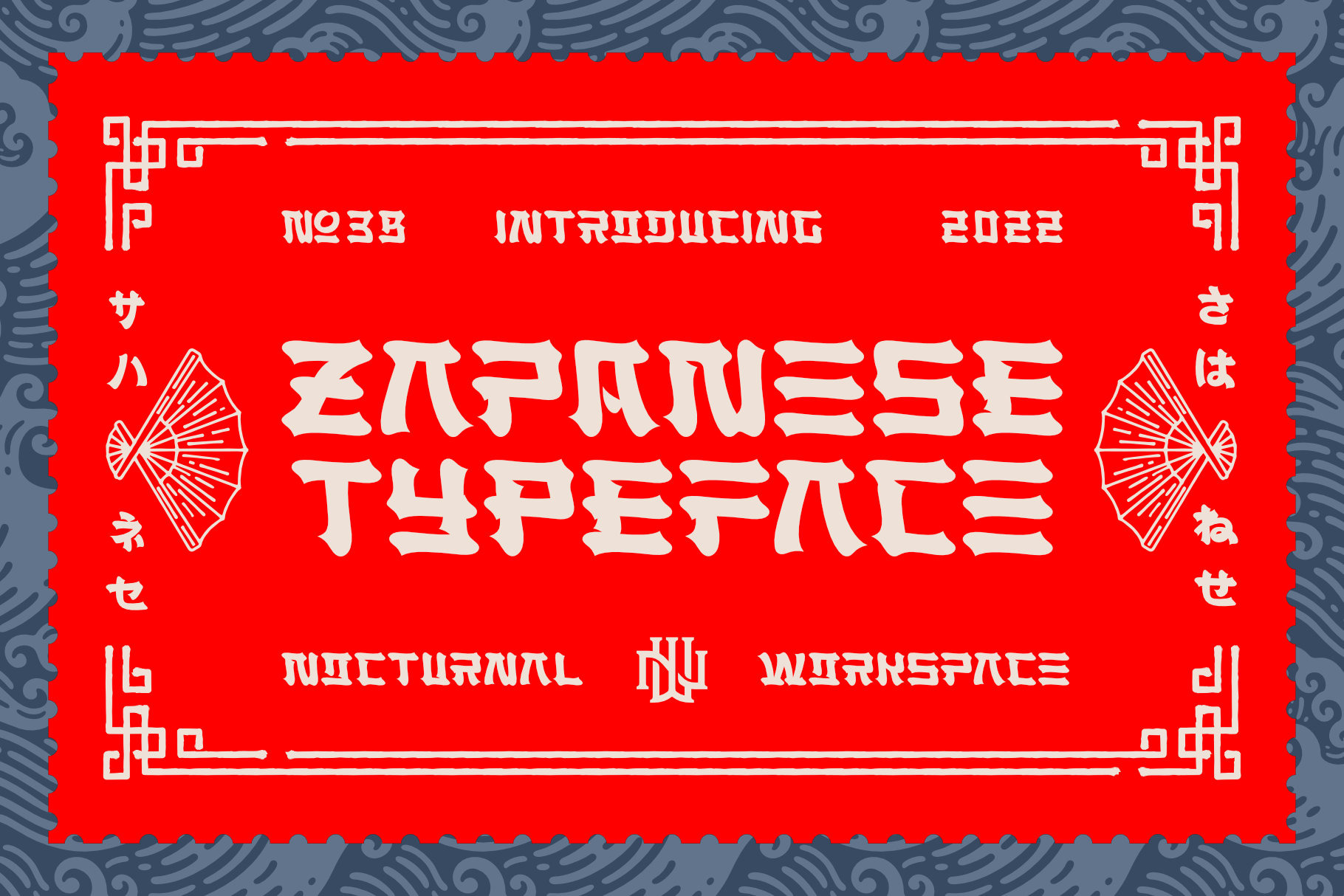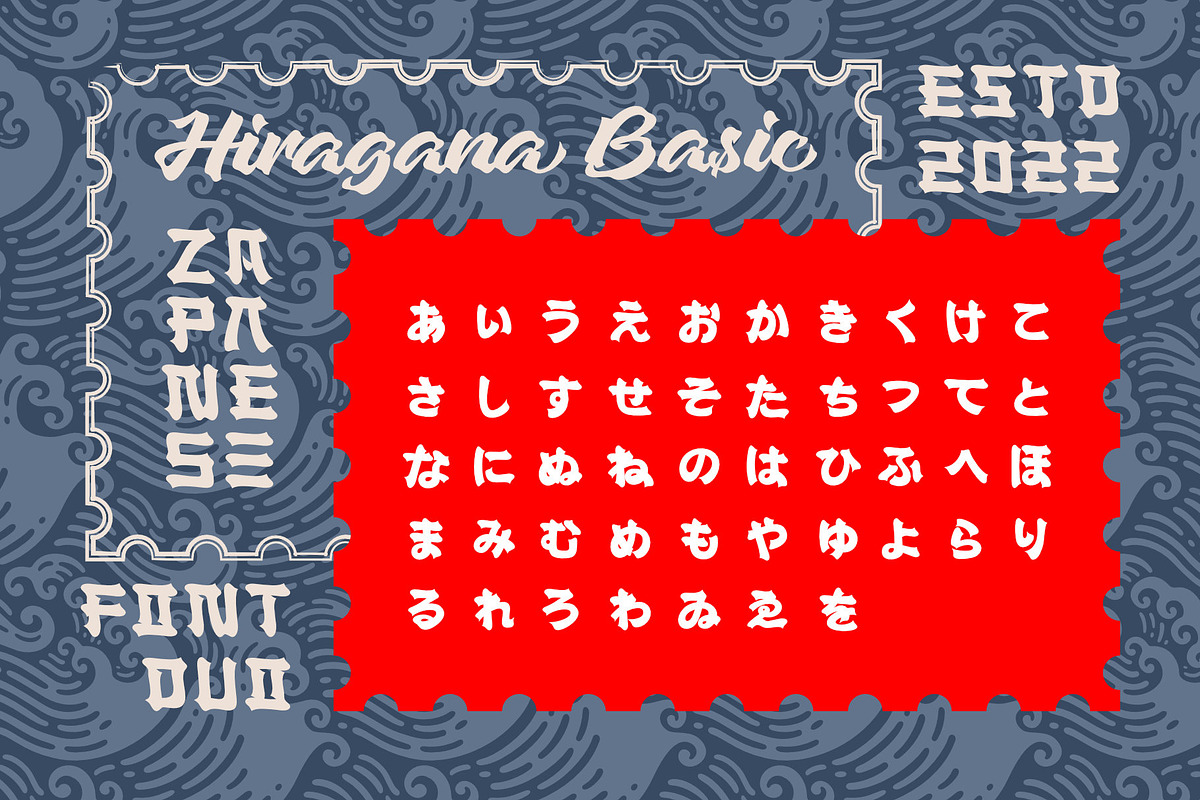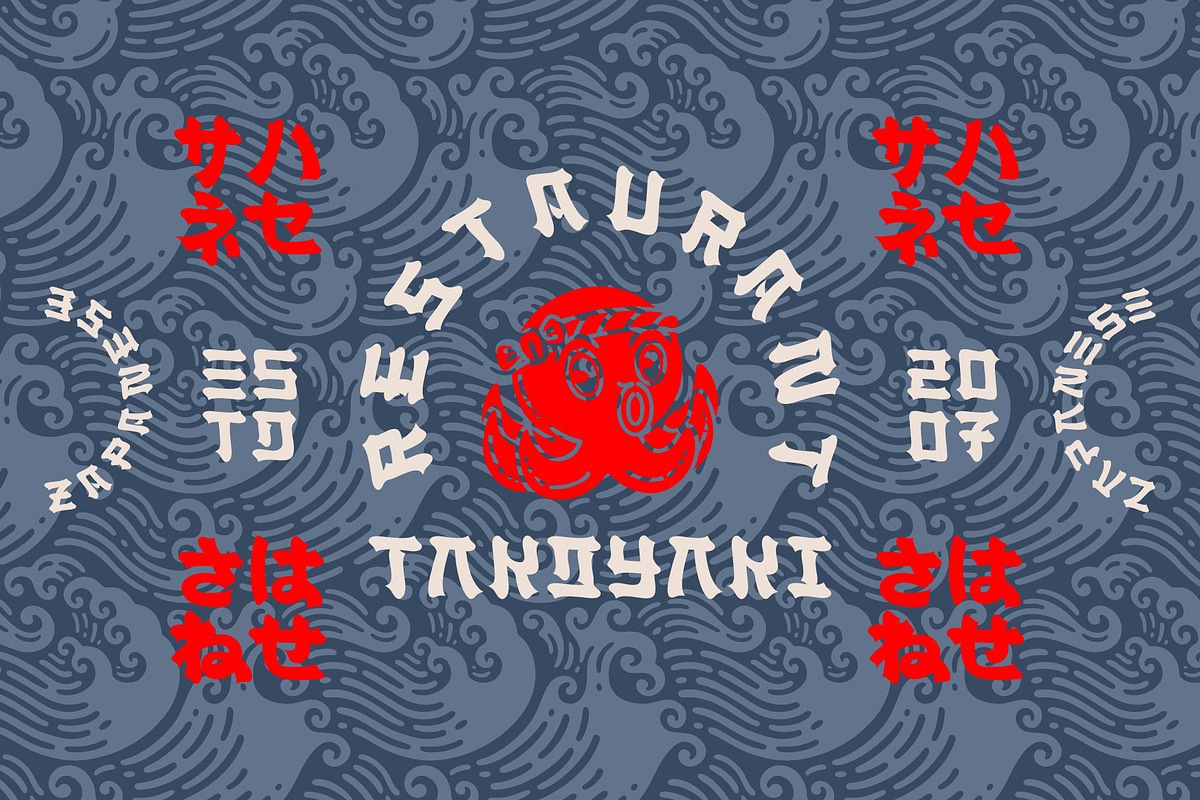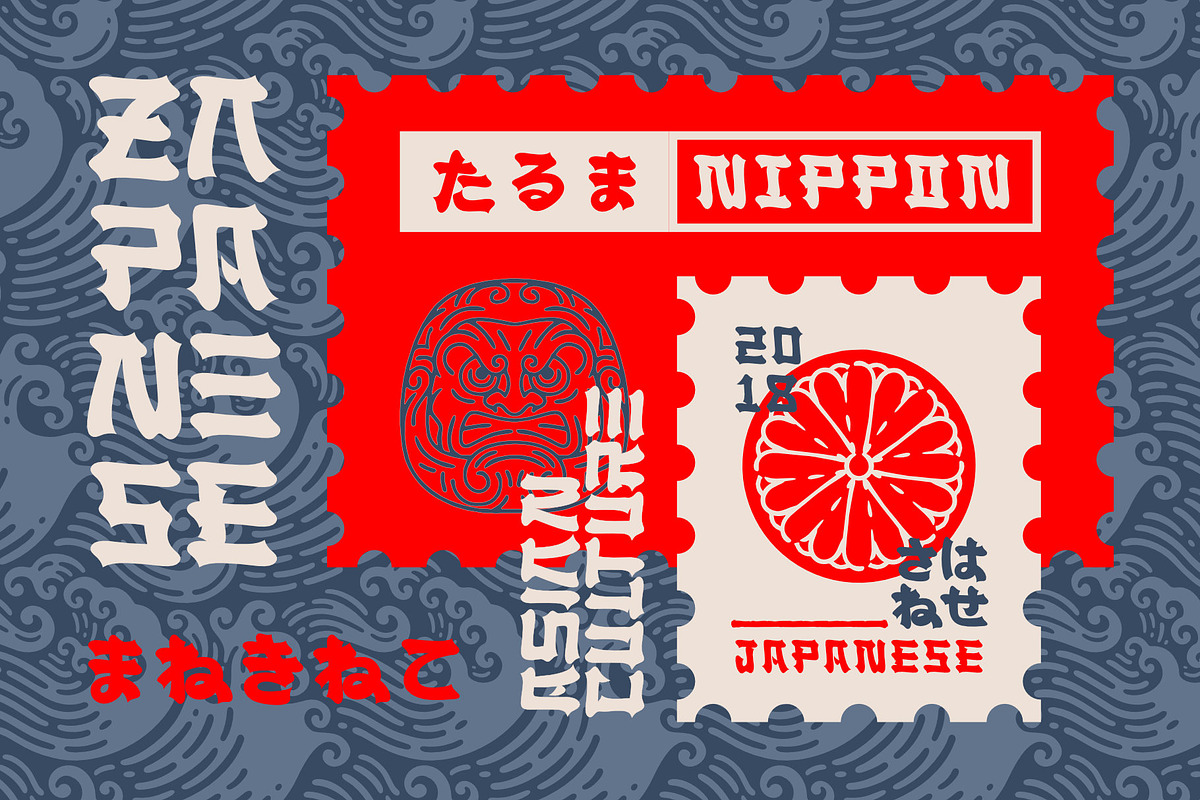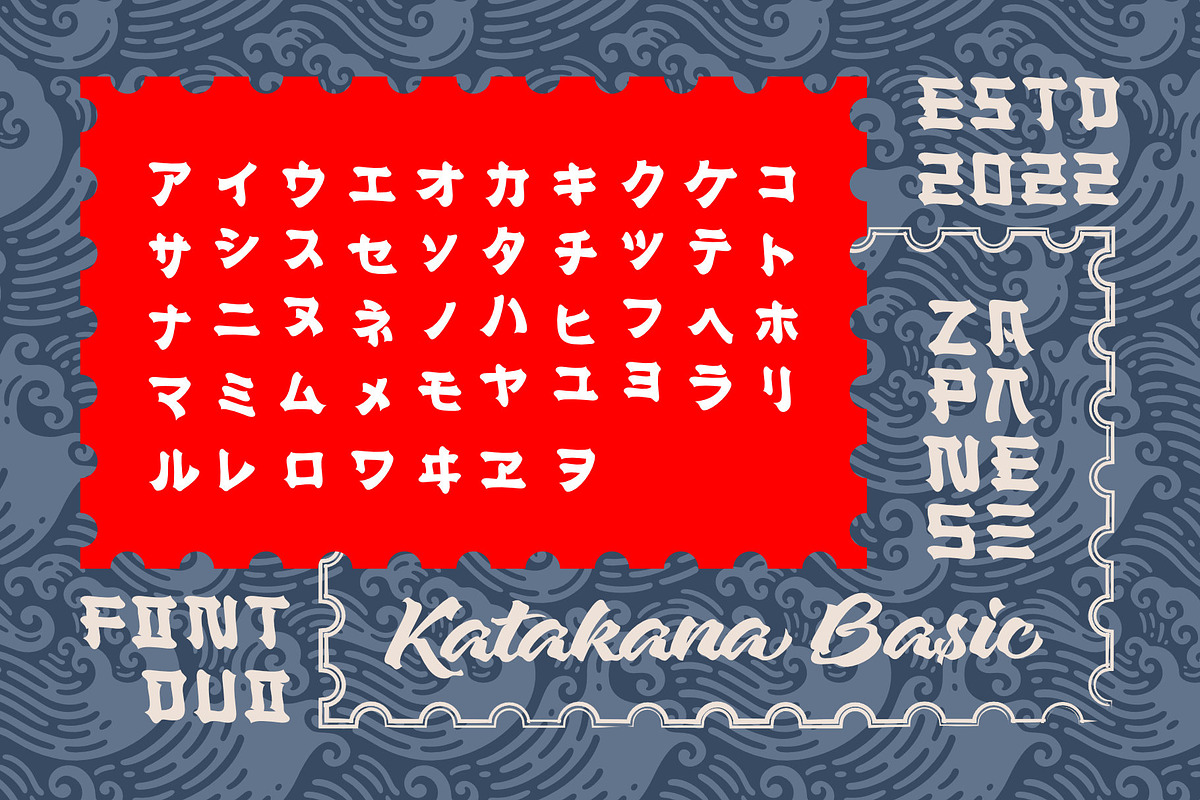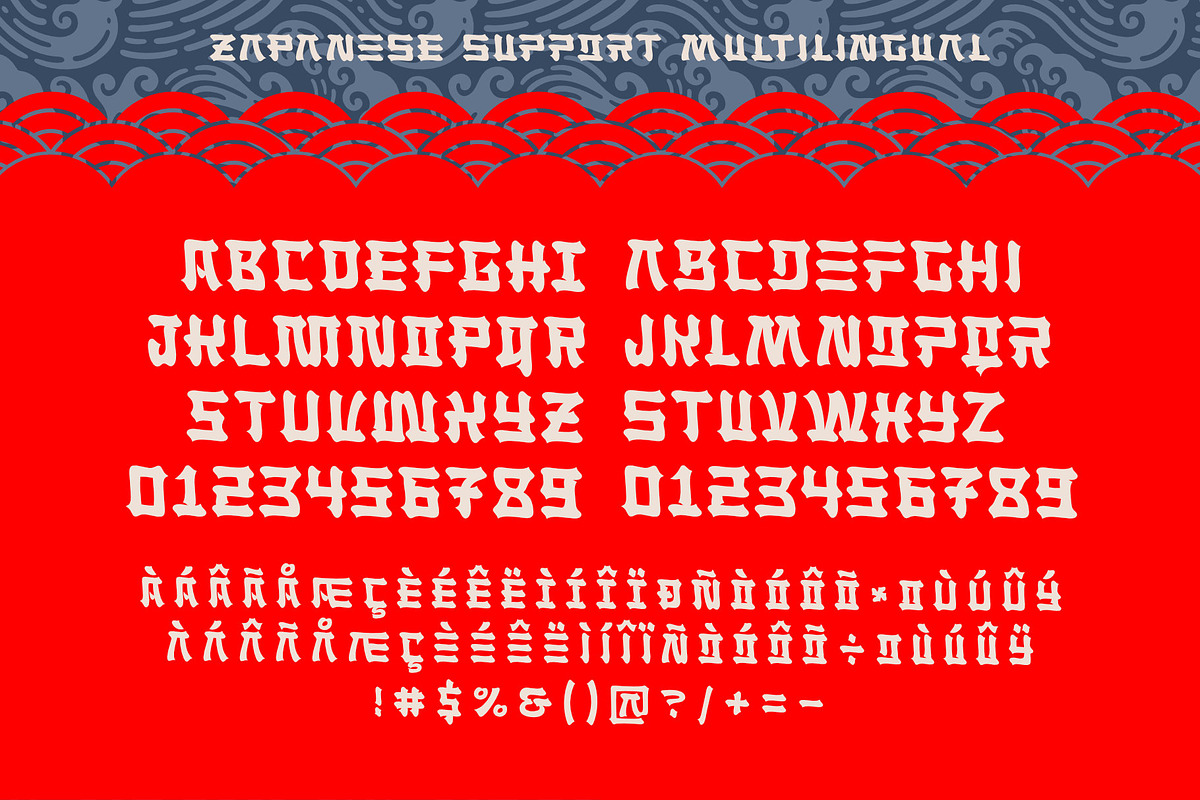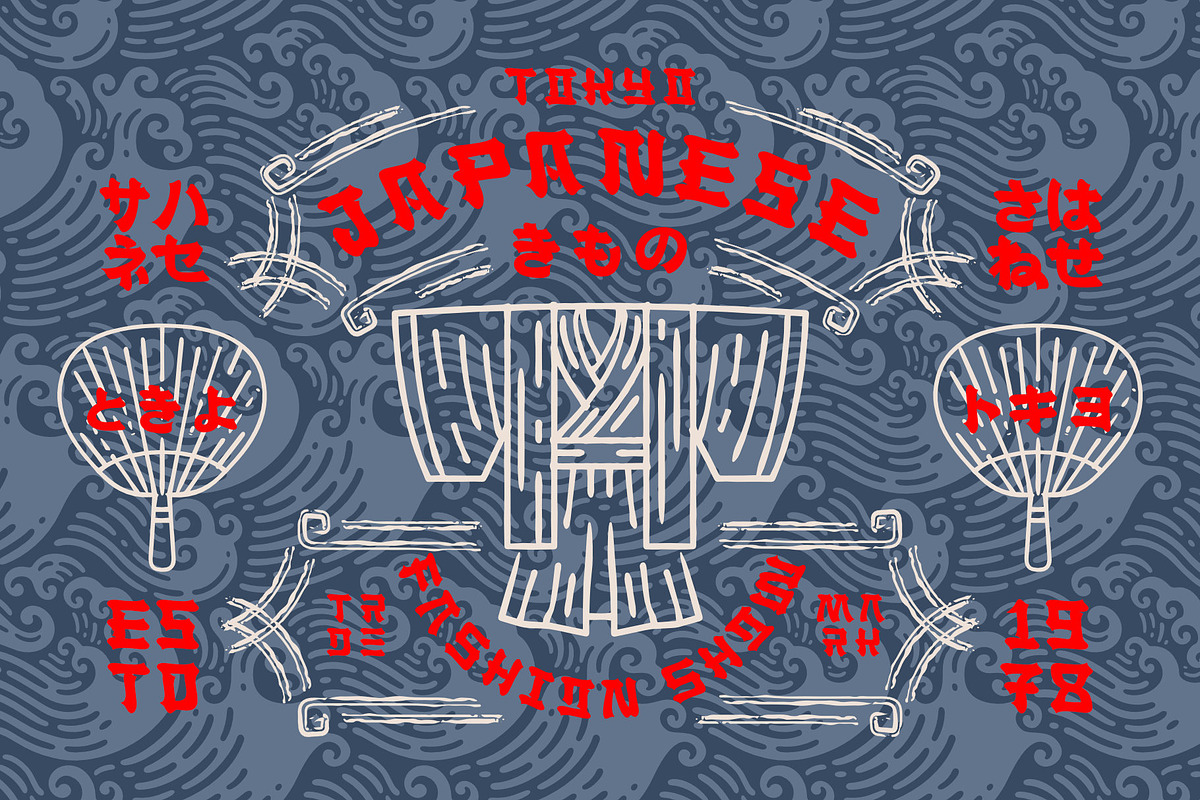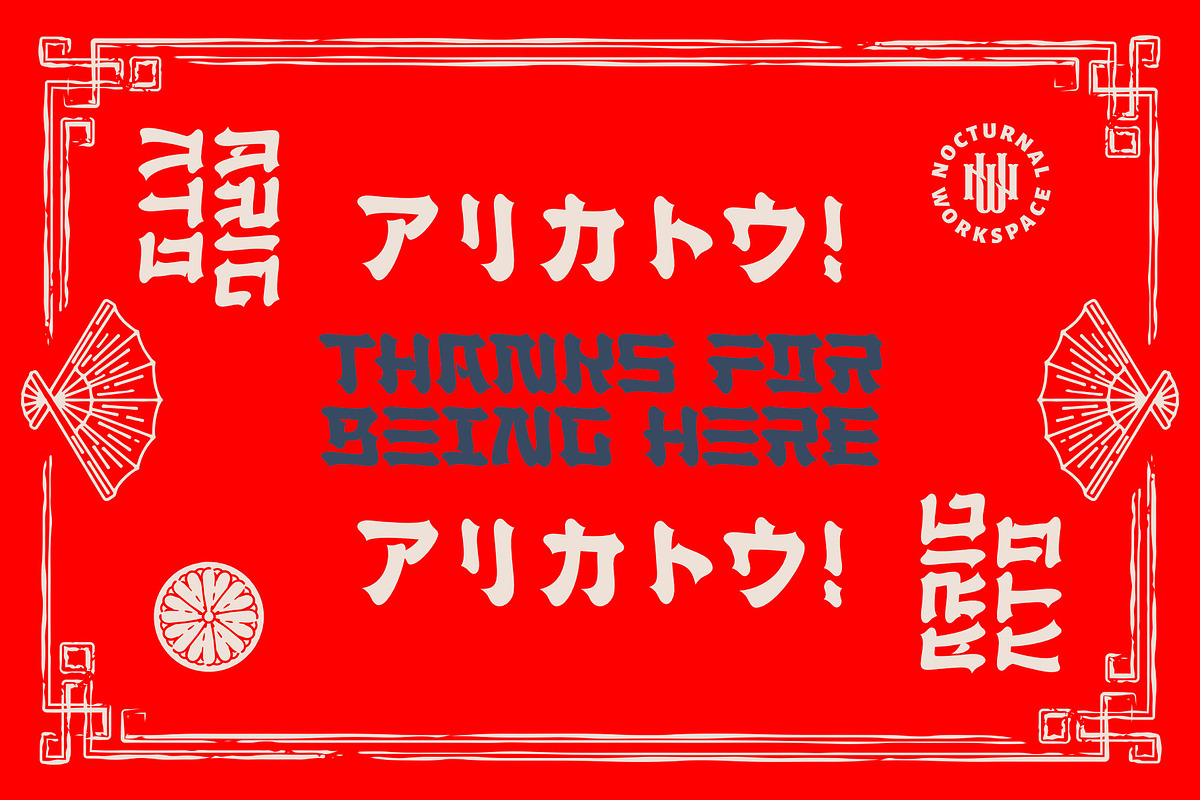
Zapanese Font
The Zapanese typeface is inspired by its predecessor font "Zapan Script". Zapanese & Zapan Script is made to strengthen the characteristics of Japan or East Asian countries. This font is perfect for designs that need an East Asian touch.